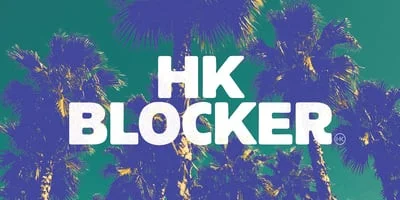
HK Blocker Font
HK Blocker Font is ideal for geometric design projects, architectural signage systems, minimalist brand identities, construction company logos, urban planning communications, modular furniture marketing, systematic design solutions, industrial documentation, grid-based layouts, and contemporary structural branding.
What makes HK Blocker Font exciting is its systematic precision that perfectly captures the organized efficiency and structural clarity found in modular design systems and architectural planning methodologies. This typeface features blocky letterforms with grid-based proportions and systematic details that evoke the methodical organization and structural integrity of well-planned architectural projects. The font's systematic personality and structural authenticity make it ideal for design and construction brands seeking to convey organization, precision, and the methodical excellence that comes from systematic planning and structural design mastery.
HK Blocker Font family includes systematic weight variations and grid-based alternatives that enhance its structural appeal while providing design flexibility for architectural and systematic applications. The font features modular ligatures, grid-inspired ornaments, and systematic character variations that create authentic structural atmosphere for architectural and systematic design branding.
Architecture firms and systematic design companies consistently select HK Blocker Font for projects requiring authentic structural appeal and systematic credibility. The font's organized character excels in applications targeting architects, designers, and systematic thinkers who appreciate genuine structural planning and methodical design approaches. Whether you're designing for construction companies, architectural firms, or systematic design solutions, this structured typeface delivers the architectural authenticity and systematic precision that resonates with audiences seeking genuine organizational excellence and the methodical planning that defines structural design mastery and systematic construction approaches.